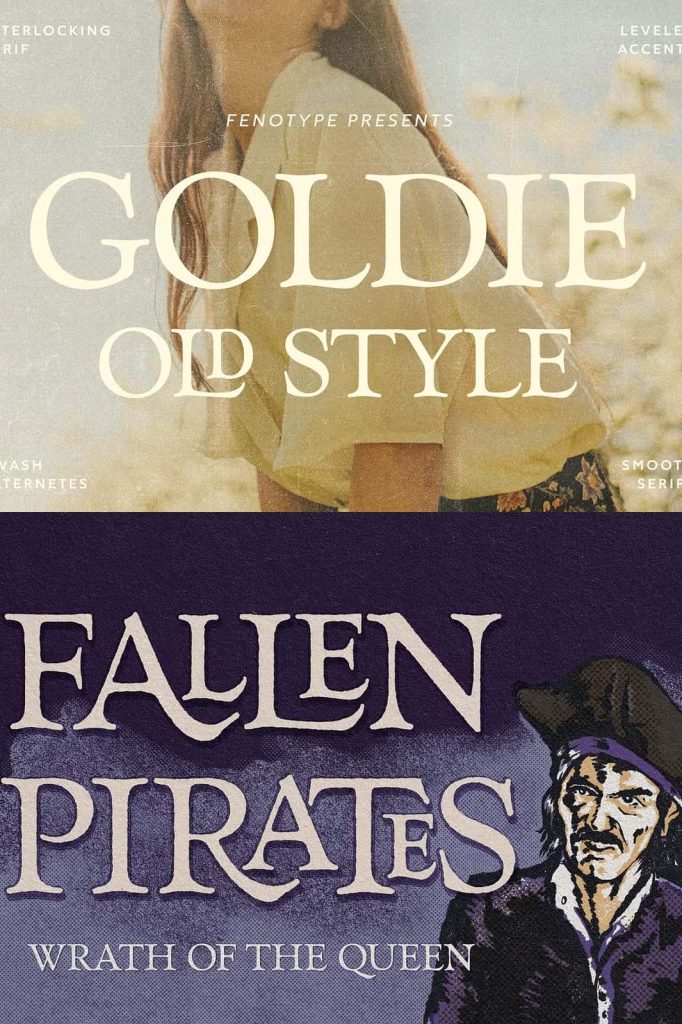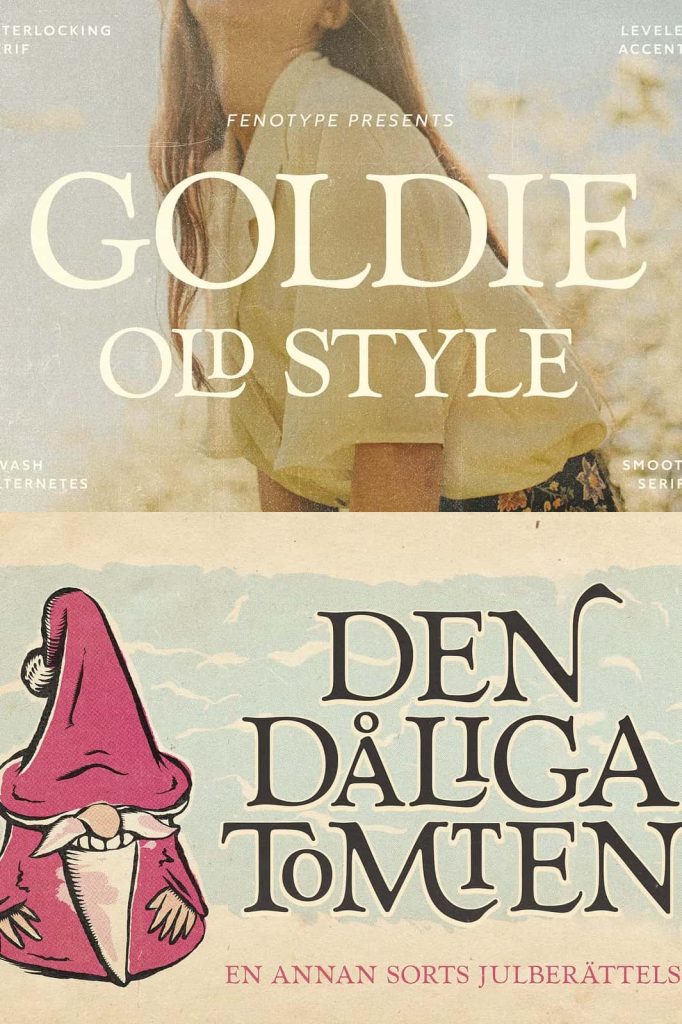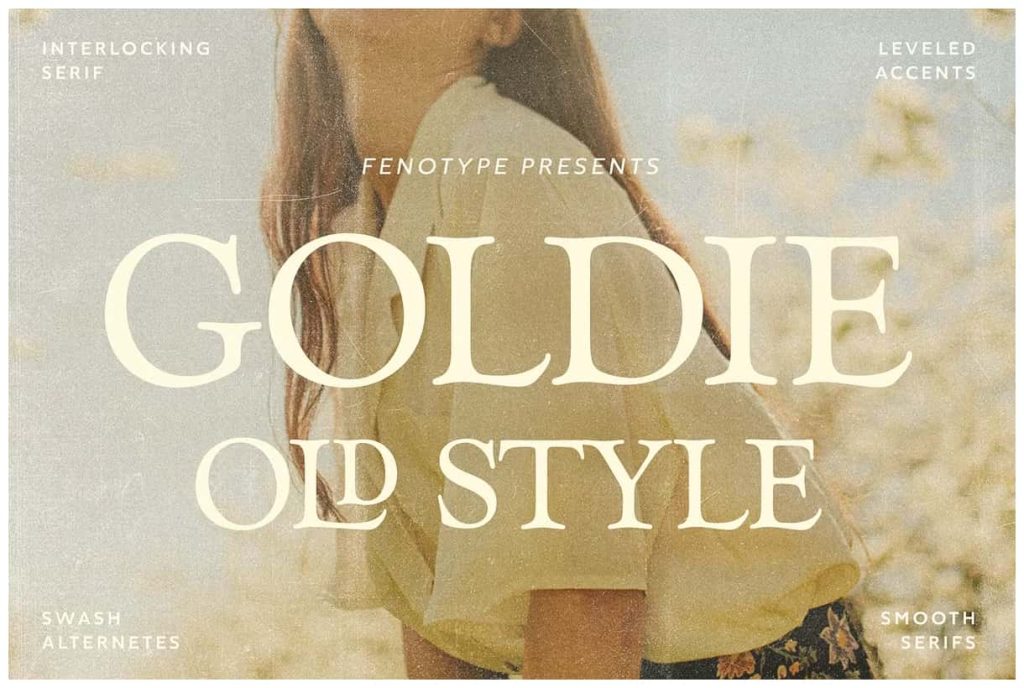
Goldie Old Style Serif FontleastedApril 2, 2025Fonts Goldie, true to its name, is a captivating serif typeface designed specifically for eye-catching headlines. Download